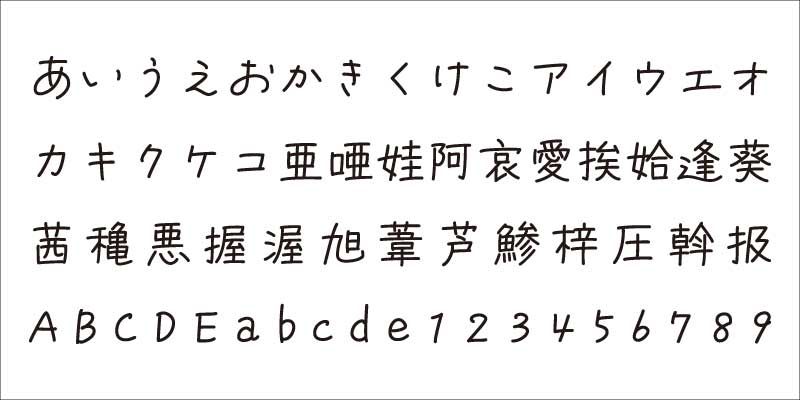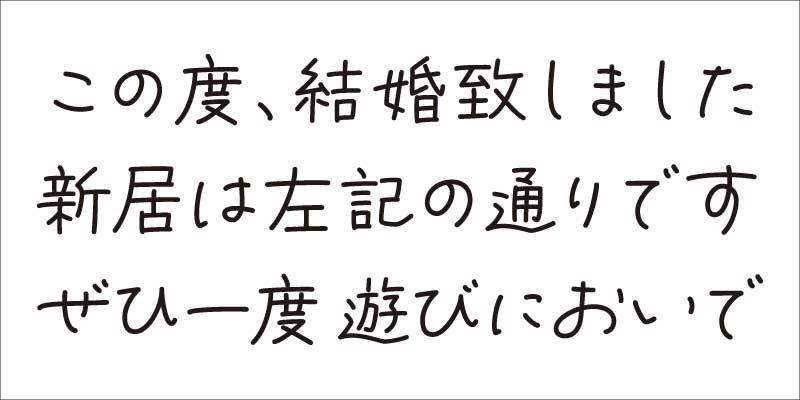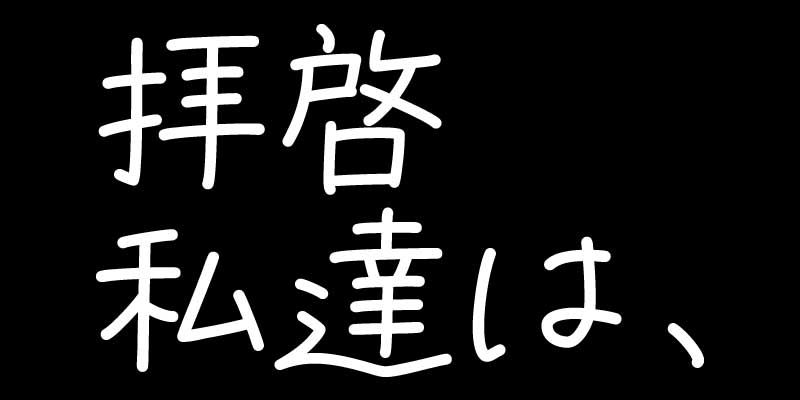
This typeface started with the desire to “convey my ideas with a good-hearted typeface.”
Each person has their own style of handwriting. Characters written by an honest, good-hearted person retain that flavor.
From this idea and a mastery of handwriting with a digital tool, this heart-warming pen script typeface design was born.